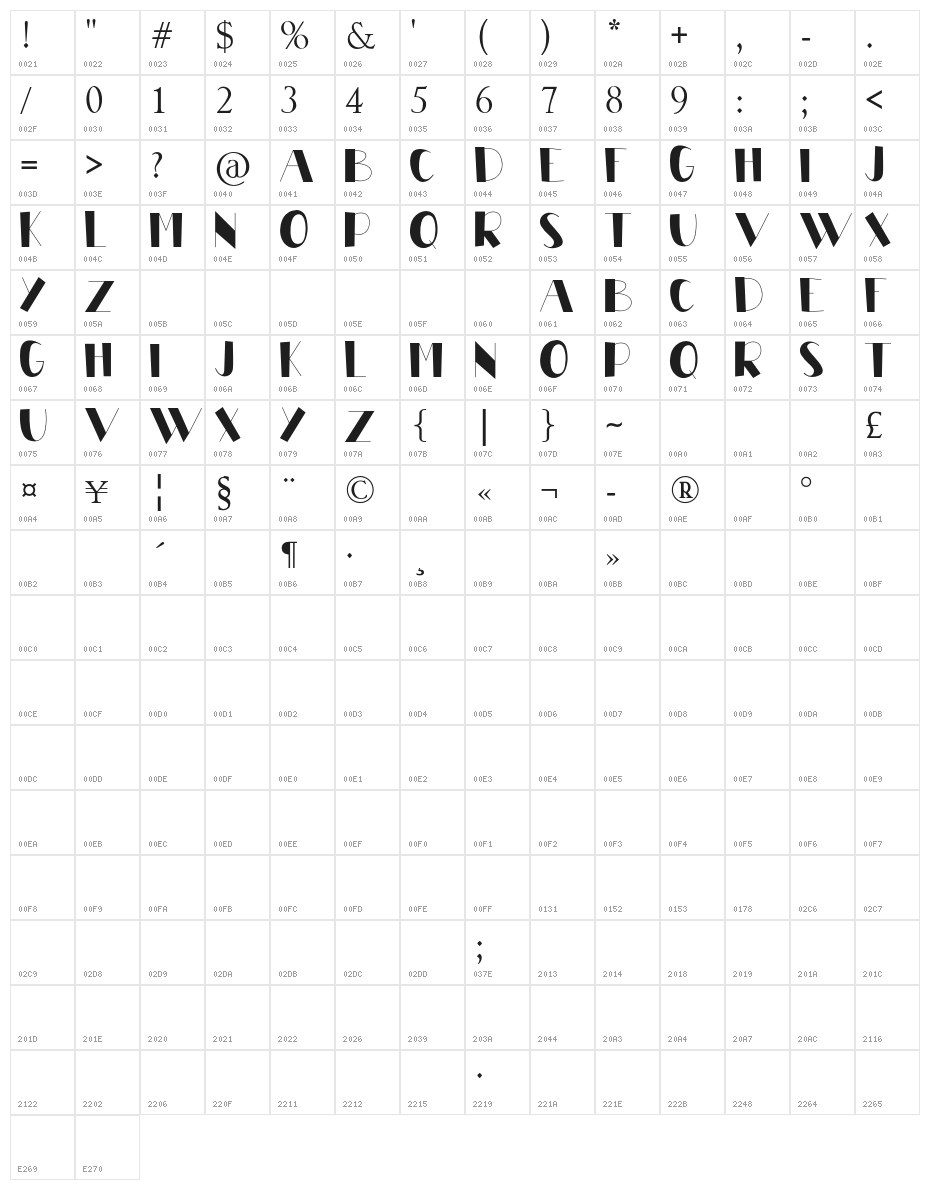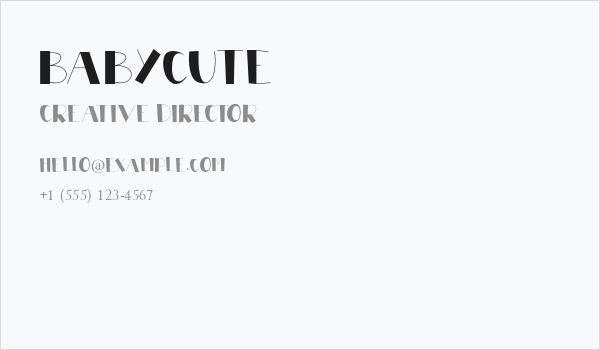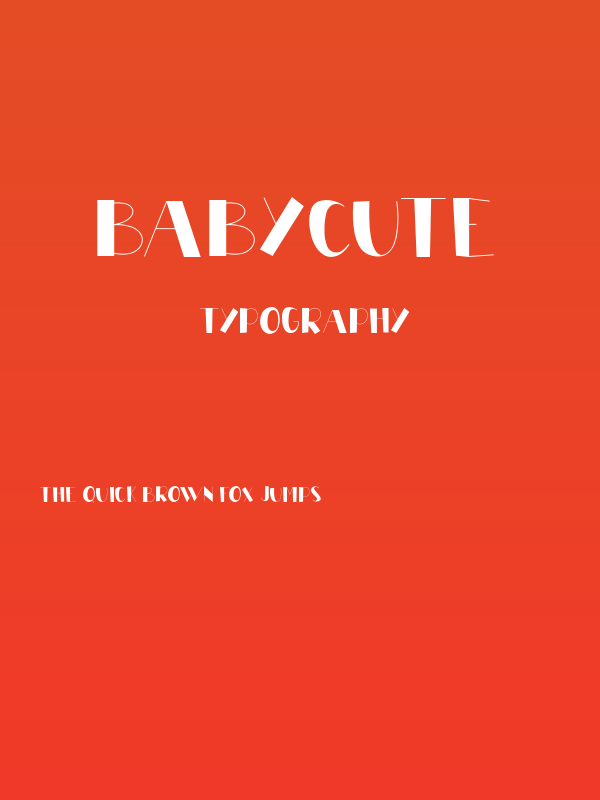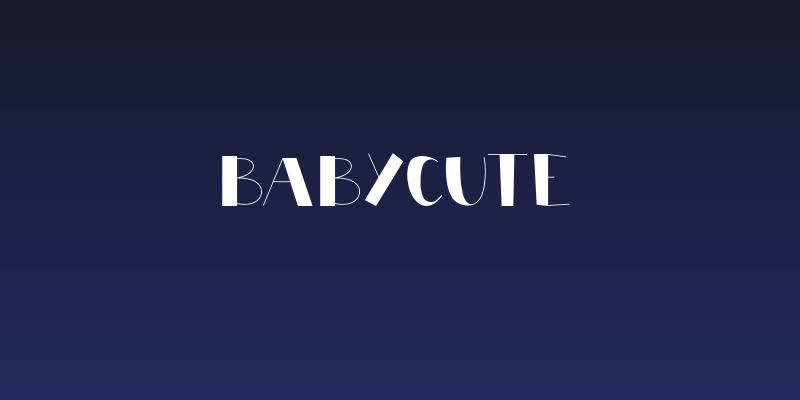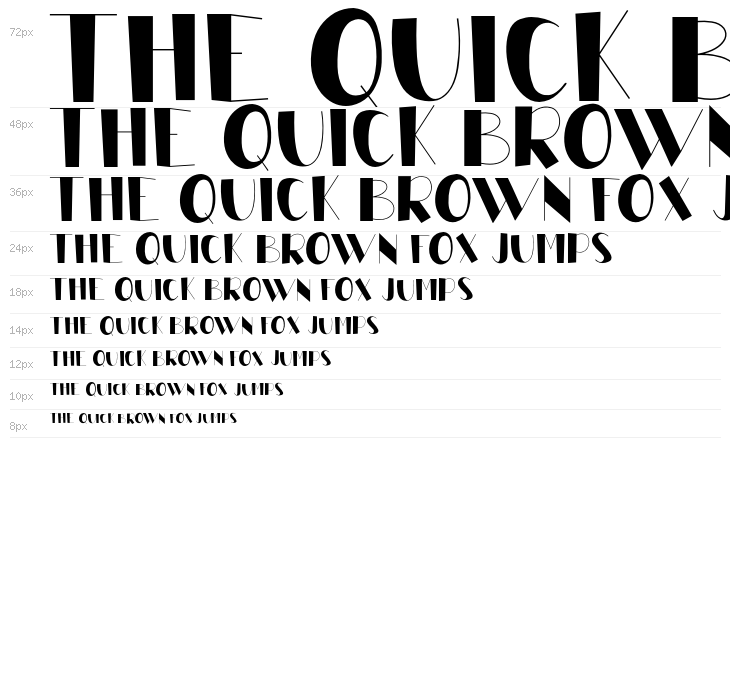
BABYCUTE Font
BABYCUTE Description
This font exhibits a playful and whimsical style with its exaggerated curves and varying stroke widths. The uppercase letters are bold and dynamic, featuring a mix of thick and thin lines that create a sense of movement and energy. The lowercase letters maintain this lively aesthetic, with a slightly more condensed form. The numerals are consistent with the overall style, offering a unique and engaging appearance. Special characters are creatively designed, adding to the font's distinctive charm. This font is ideal for projects that require a fun and eye-catching look.
| Proposed Projects | Ideal for children's books, playful branding, greeting cards, and creative posters. |